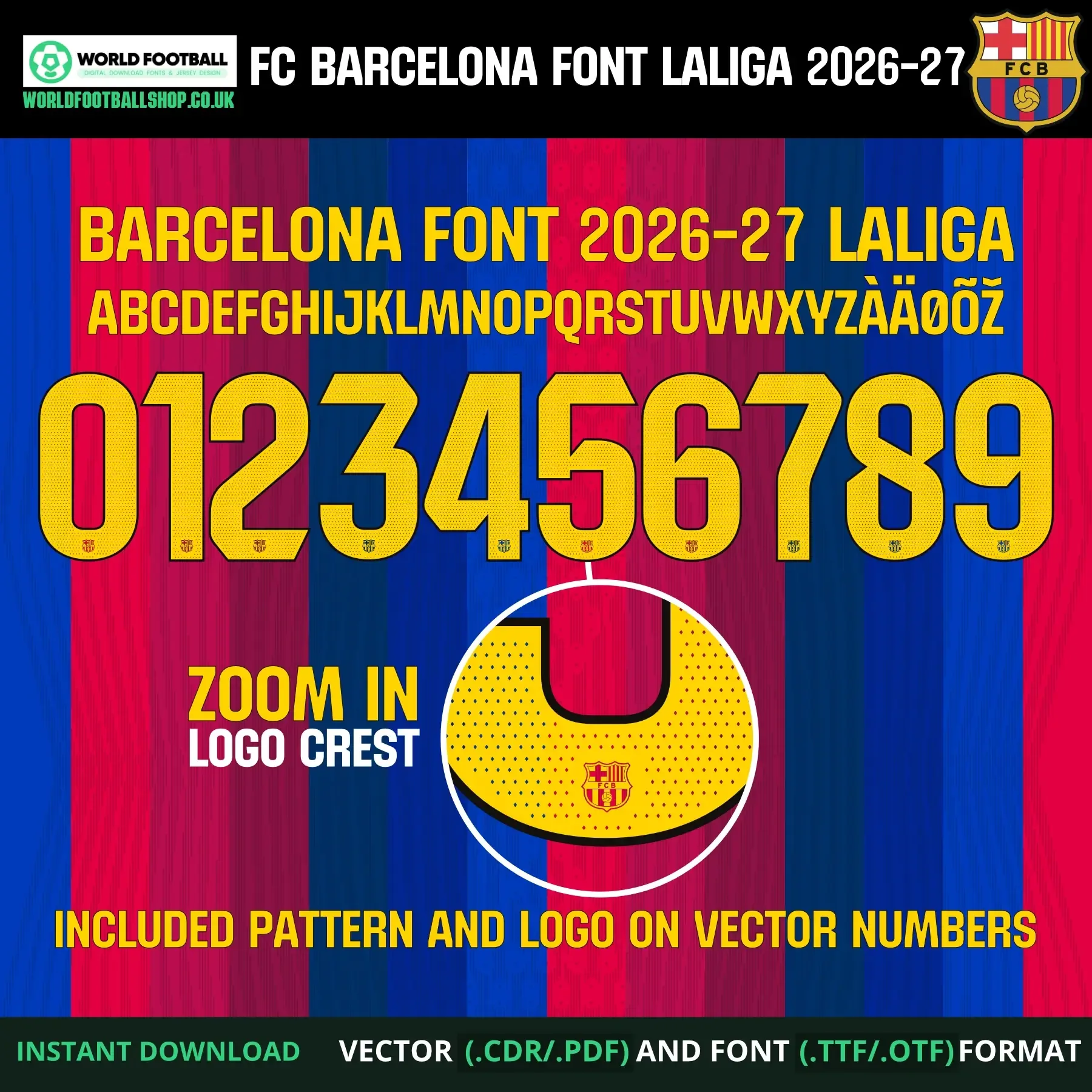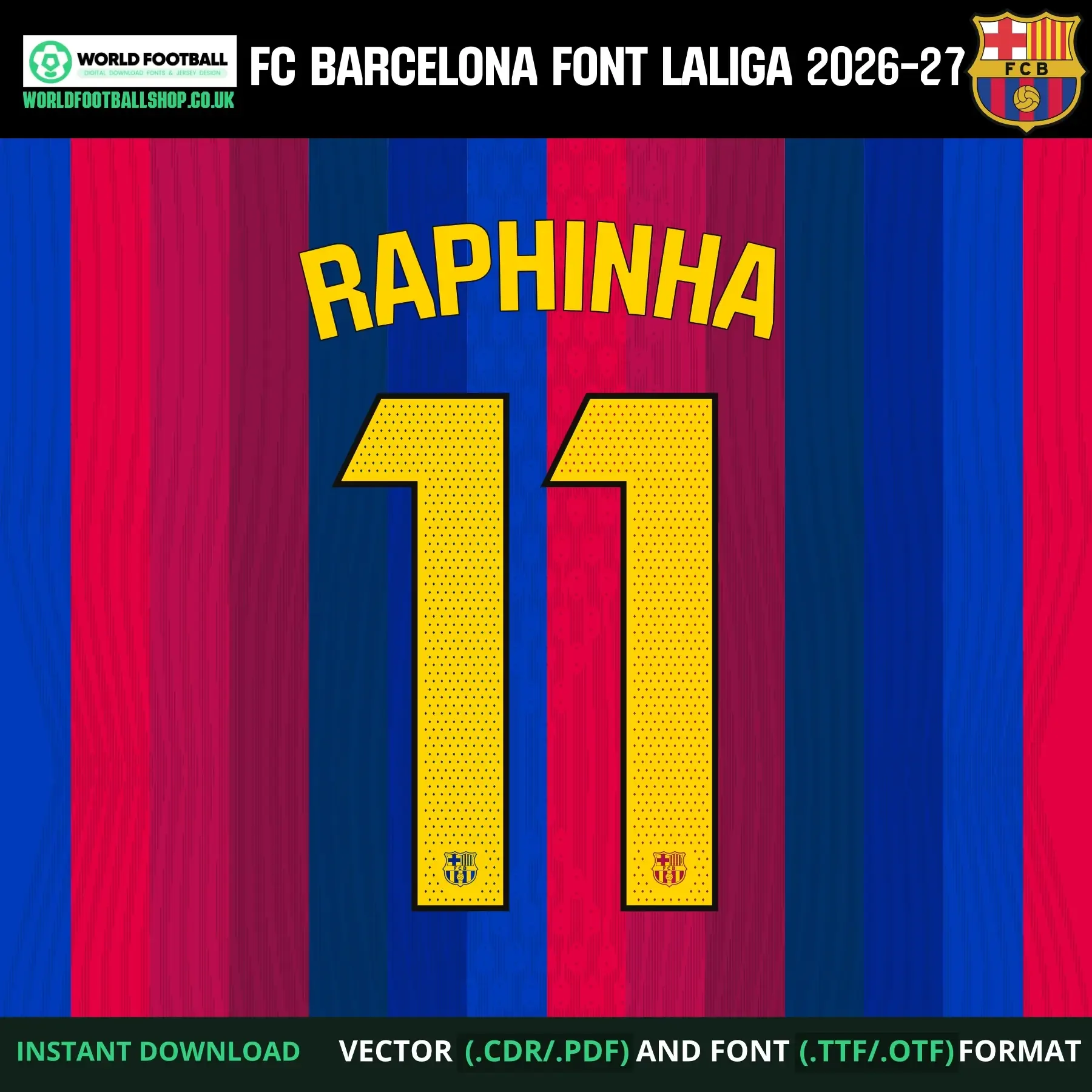
Barcelona 2026-27 Football Font Vector LaLiga
Since 2017, La Liga has required every club to use one standard font in league matches, which means Barcelona's custom cup typefaces stay off the shirt for domestic games. This Barcelona football font vector is built for that LaLiga look: bold yellow characters with a black outline and a fine dotted pattern, set against the blue and red stripes, with the club crest embedded at the base of every letter and number. The preview layout shows the full character set alongside a sample name and number combination Nameset - RAPHINHA 11 - to demonstrate how the font looks applied.
- Yellow-on-blaugrana styling with black outline and dot pattern for a league-match look
- Pattern and crest detail included on the vector numbers for a cohesive, kit-inspired finish
- Crest and pattern on every number - ideal for accurate shirt number recreations
This font is an independent recreation, studied closely from the league-match lettering style to capture its proportions, outline weight, pattern and crest placement. It's built for jersey mockups, fan art, matchday graphics, and personal creative projects.